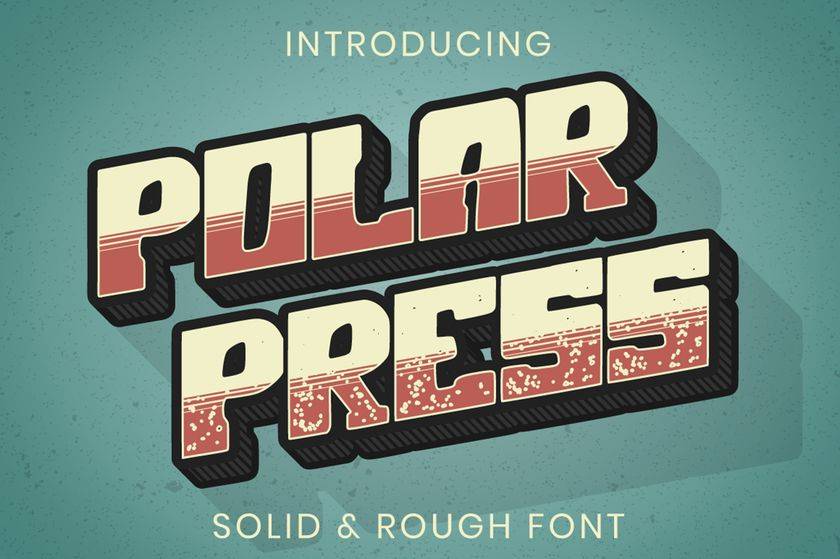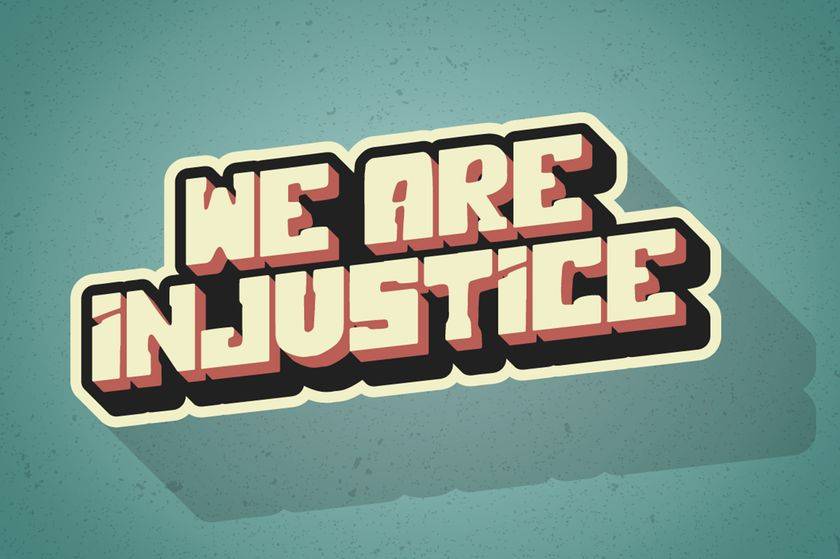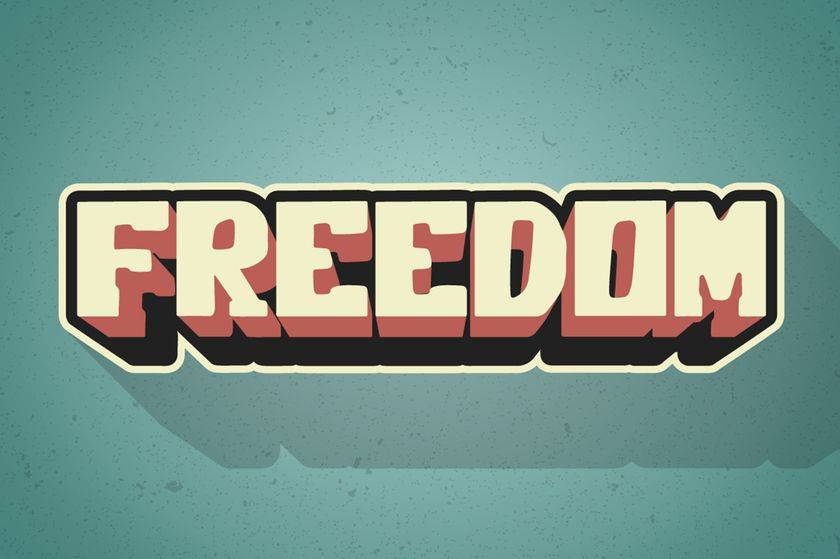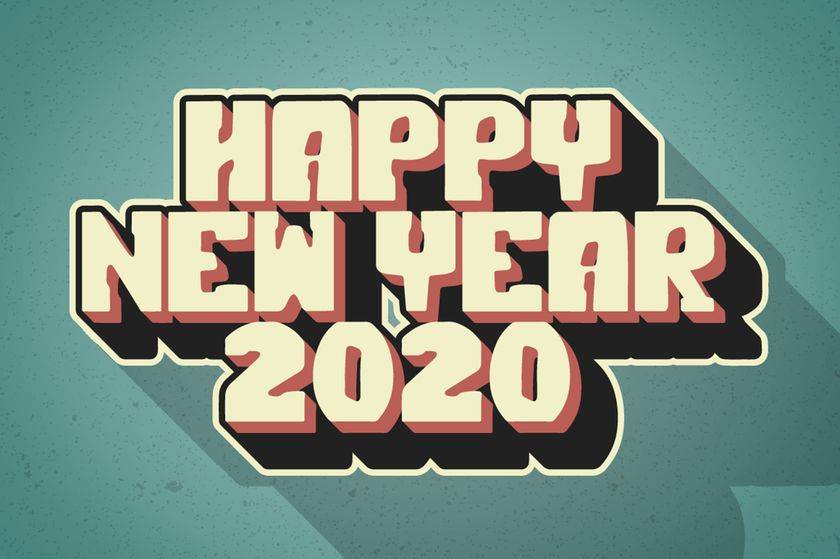
Polar Press is a bold, chunky display font with a strong, industrial feel and a slightly irregular, hand-crafted texture that adds character and originality. Its condensed width and heavy weight make it perfect for eye-catching headlines, signage, and branding that demands attention with a unique, rugged style. This font is ideal for brands or projects that want to convey strength, vintage charm, or an adventurous spirit.
Polar Press Font
About Polar Press Font
| Font family | Polar Press Font |
| Designer | Fadli Ramadhan Iskandar - Attype Studio |